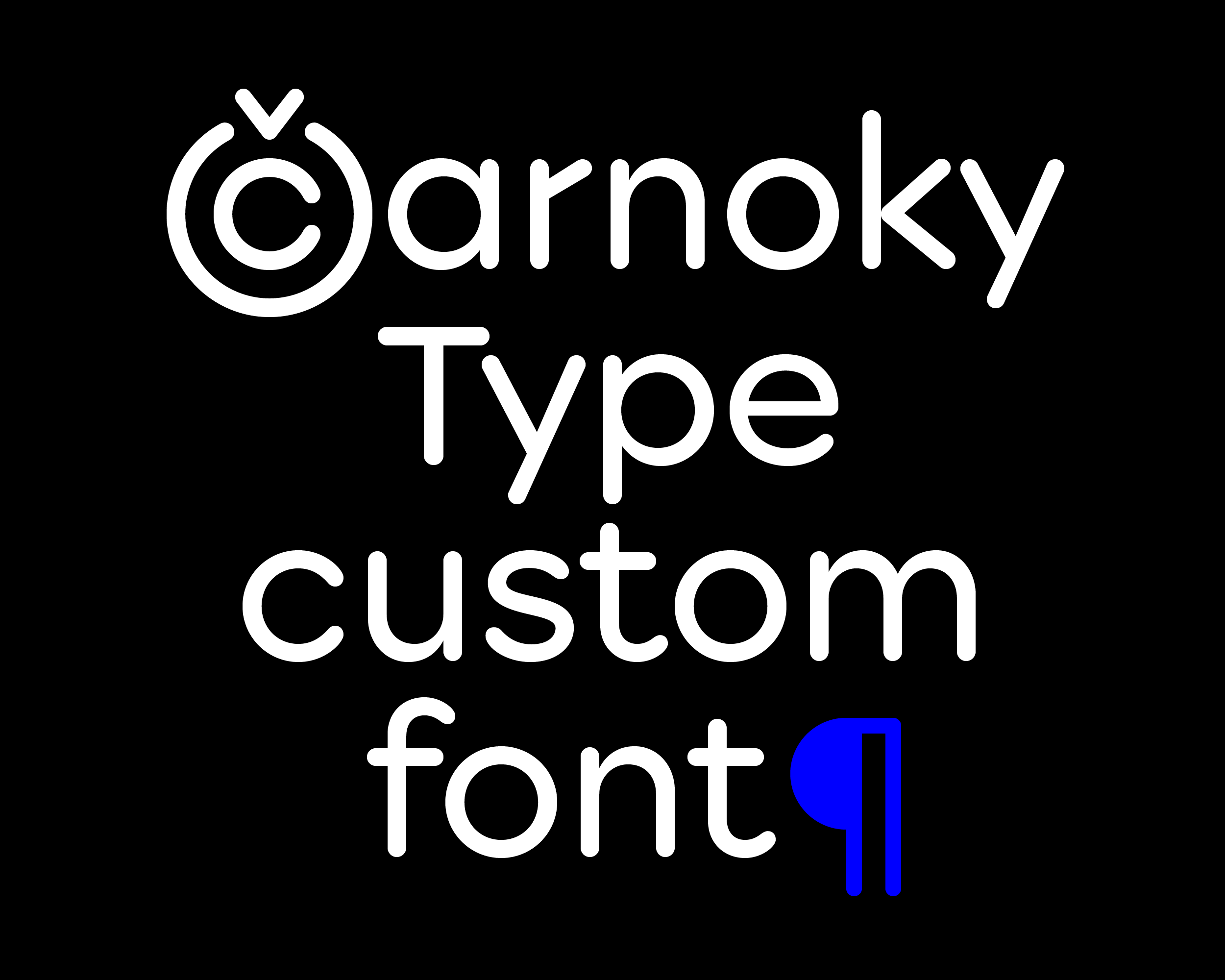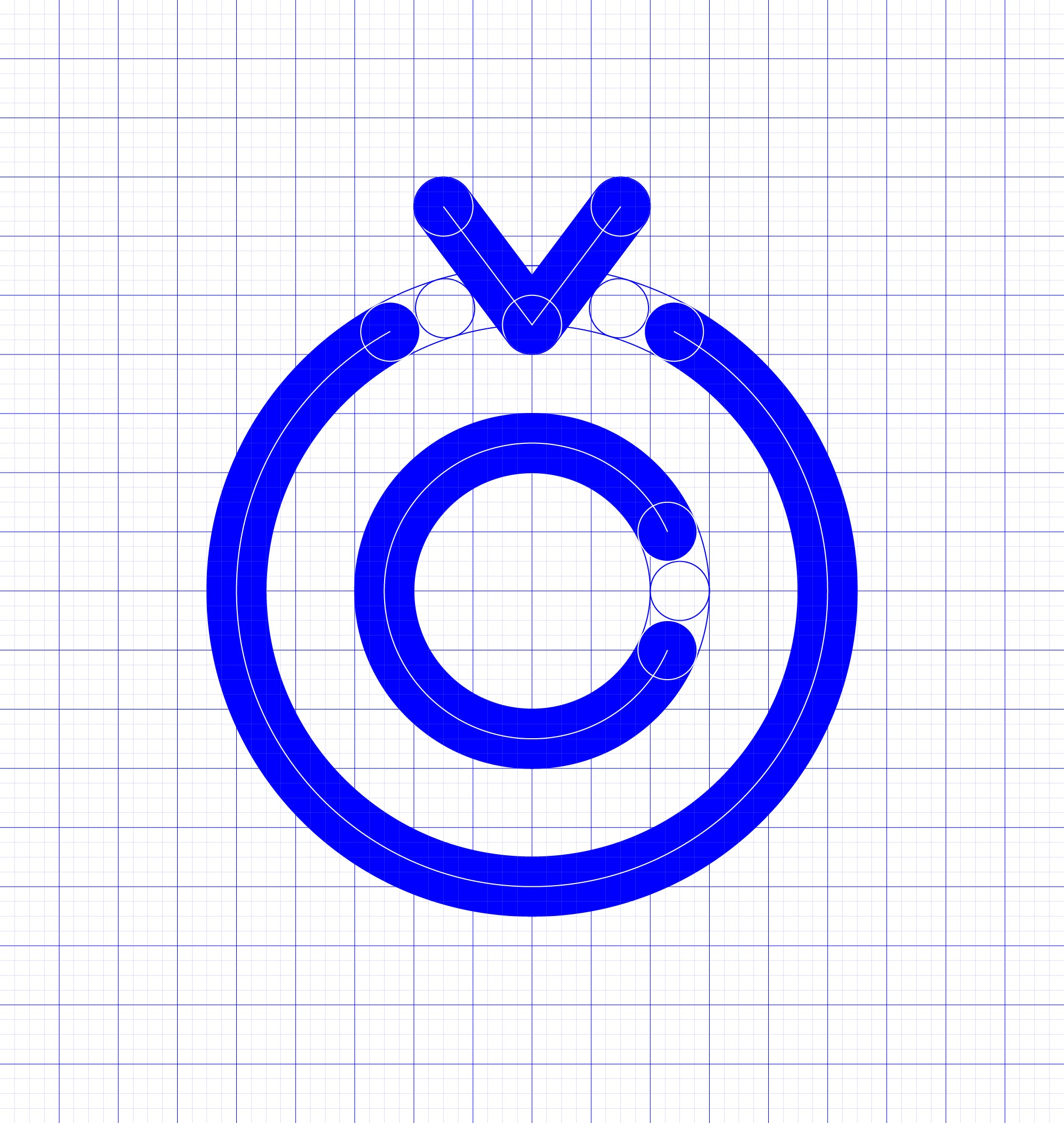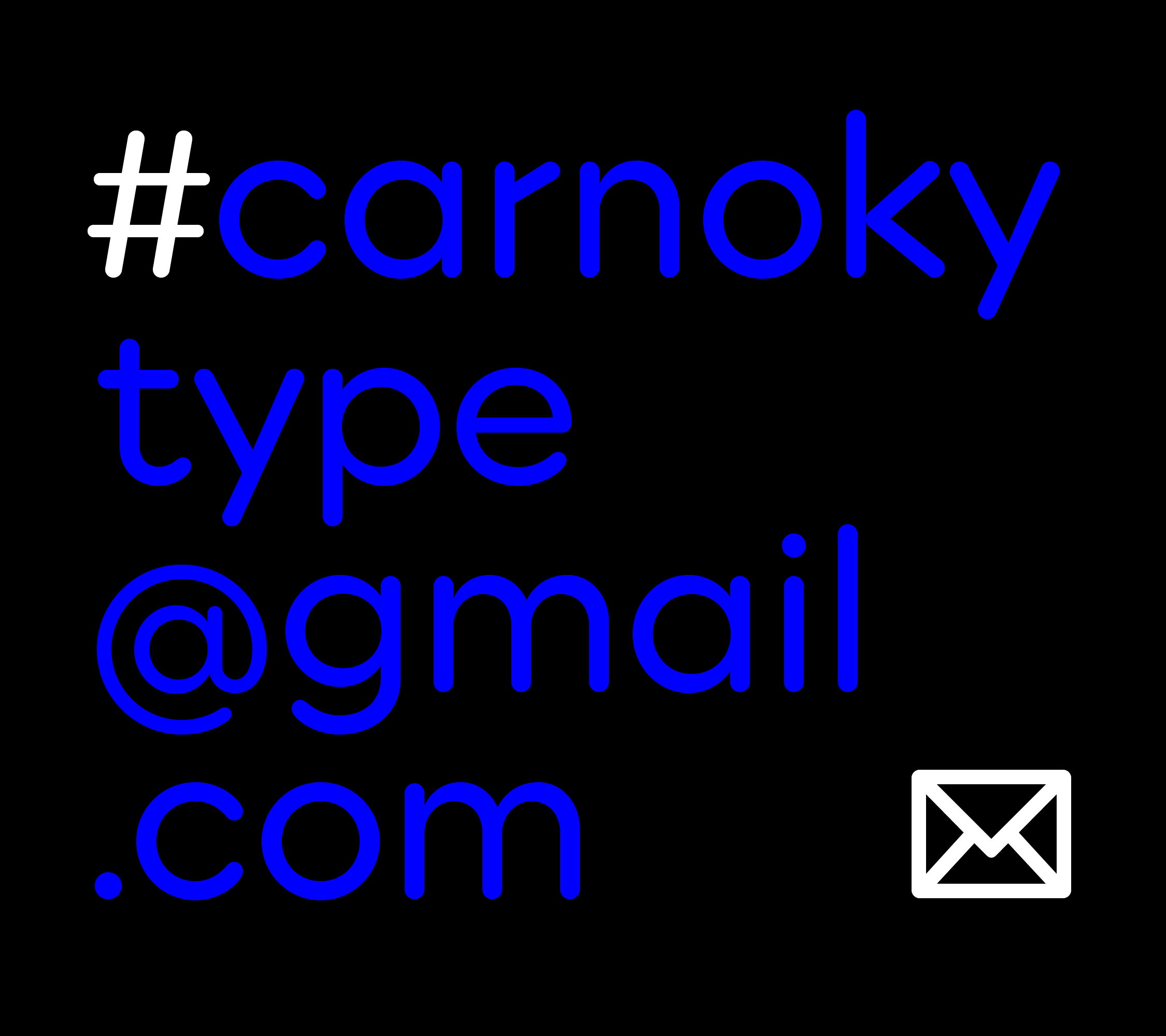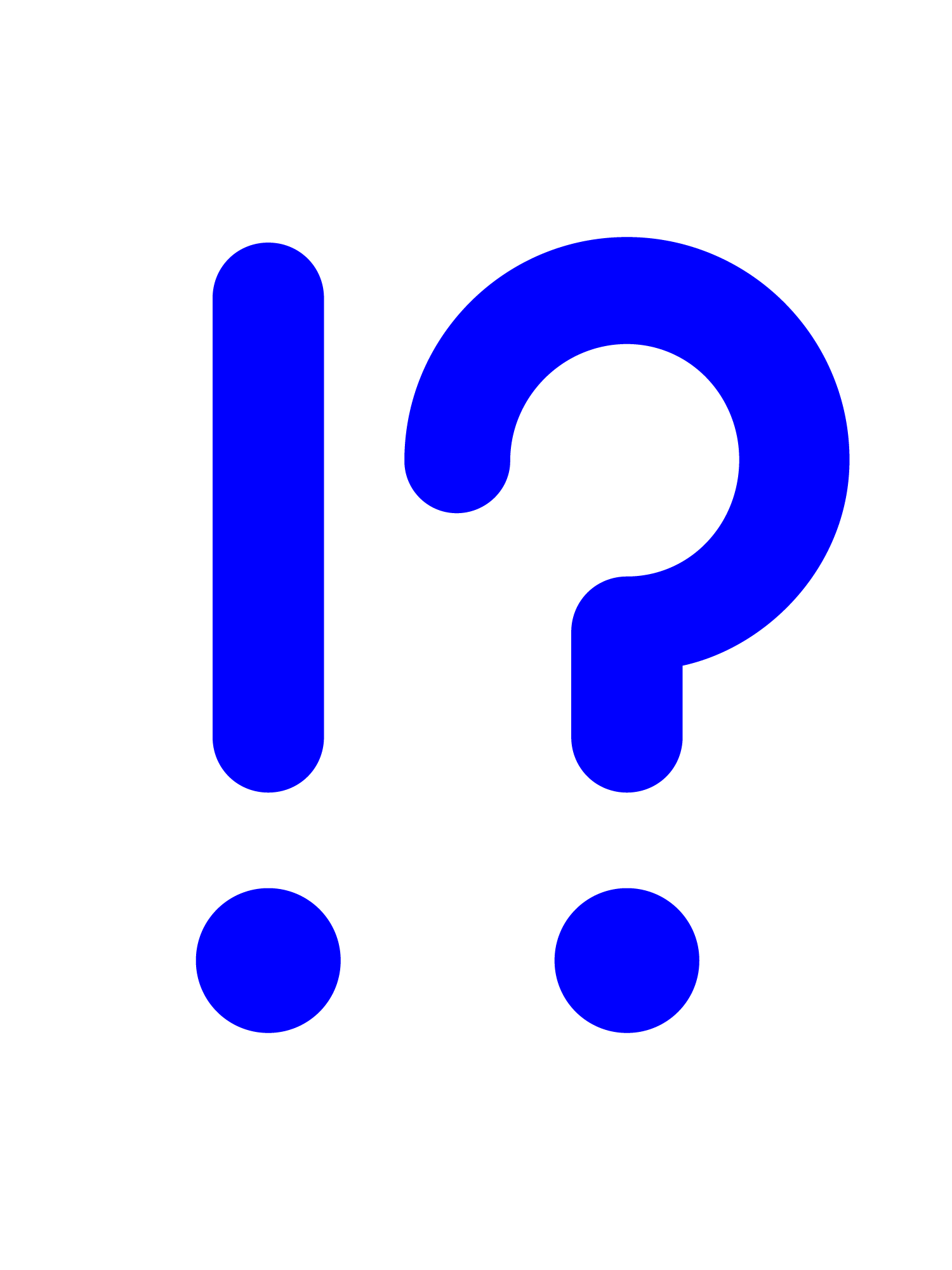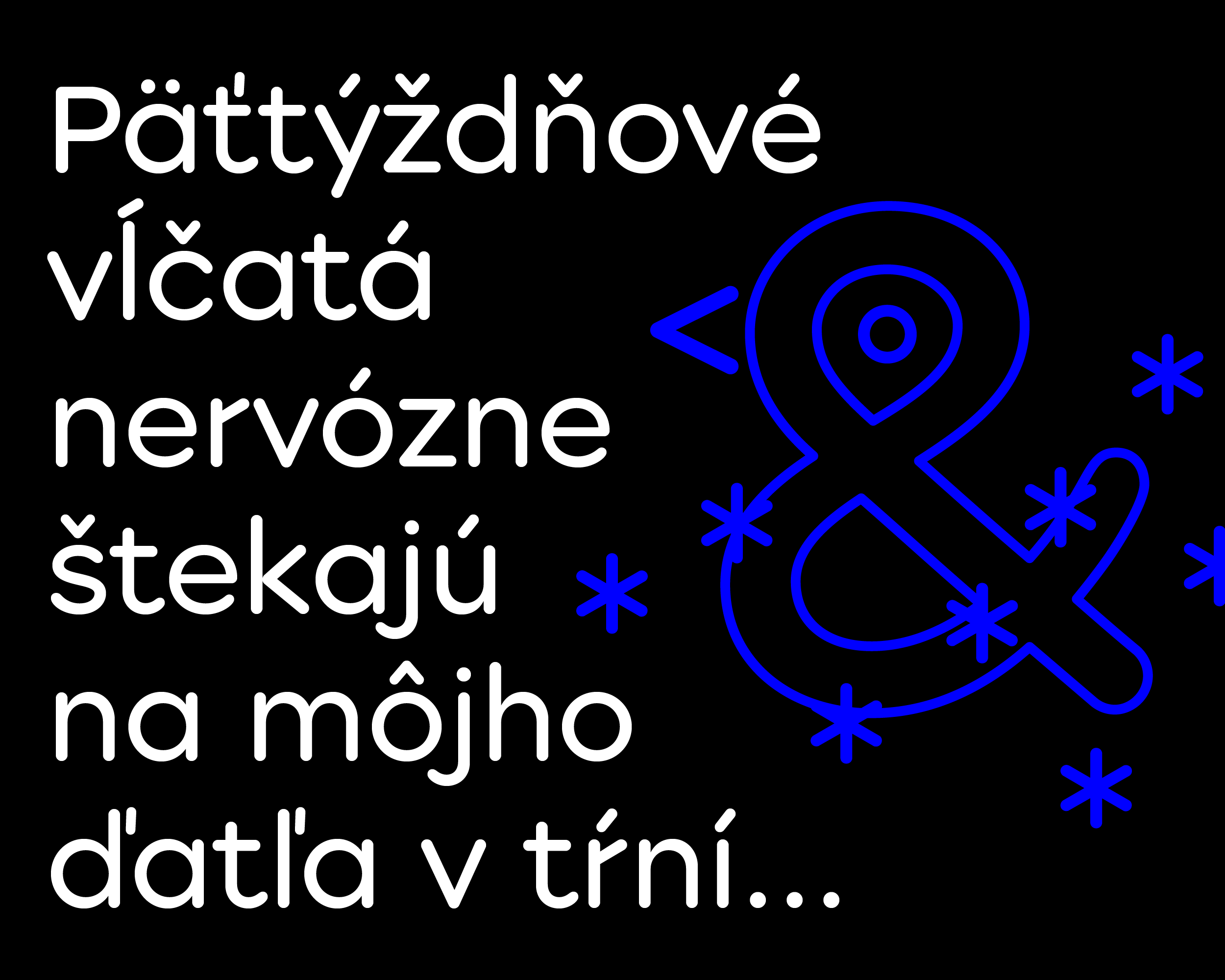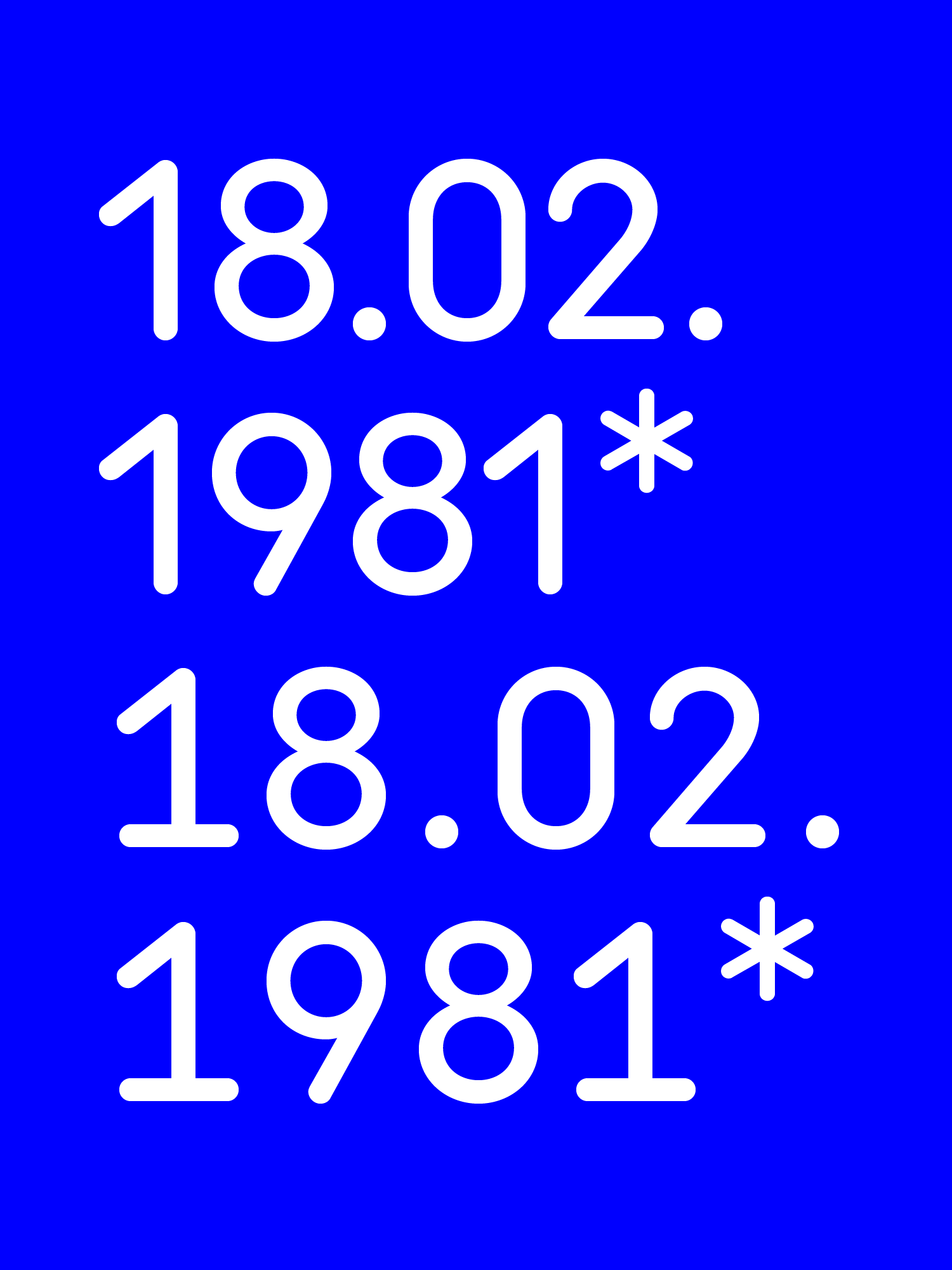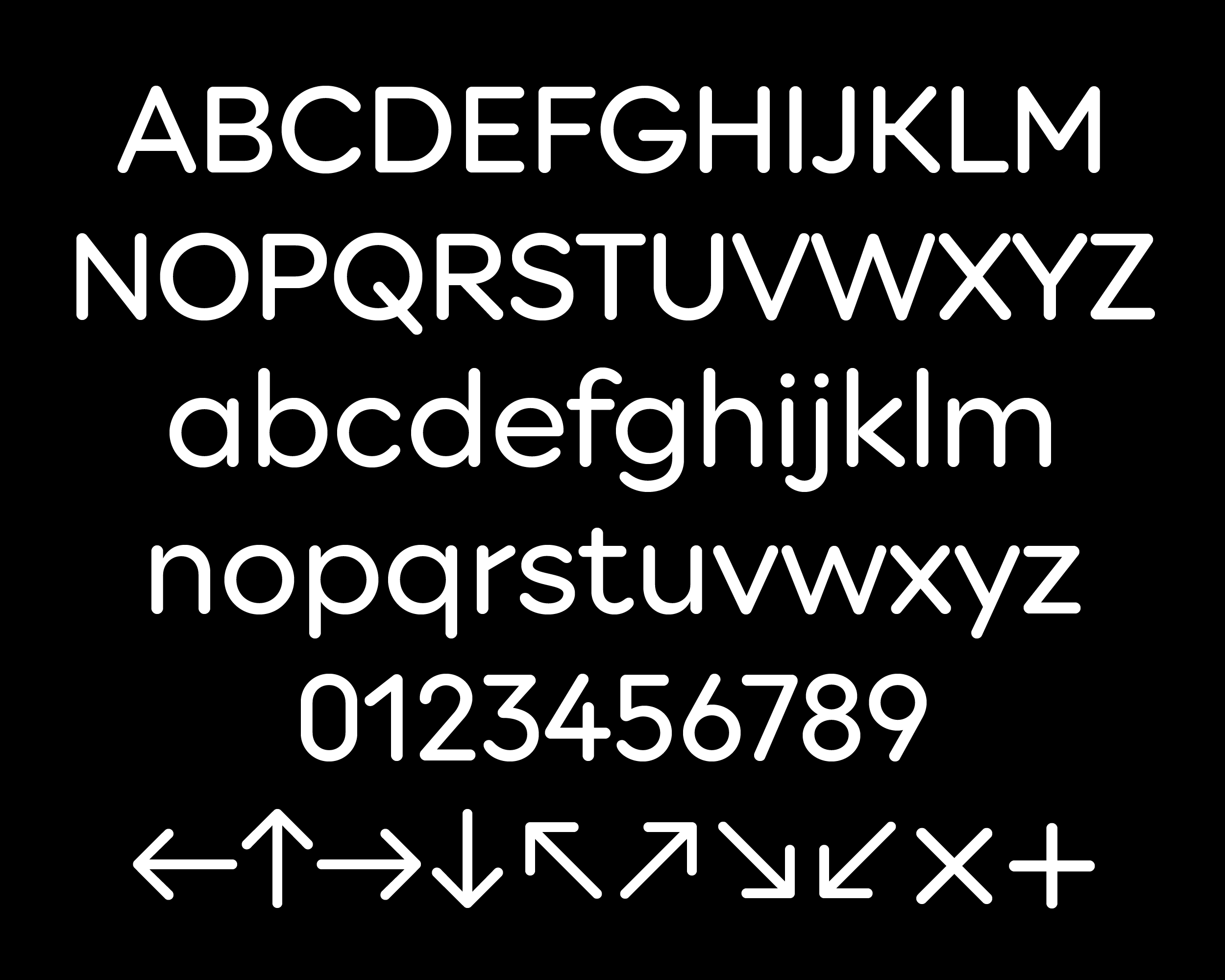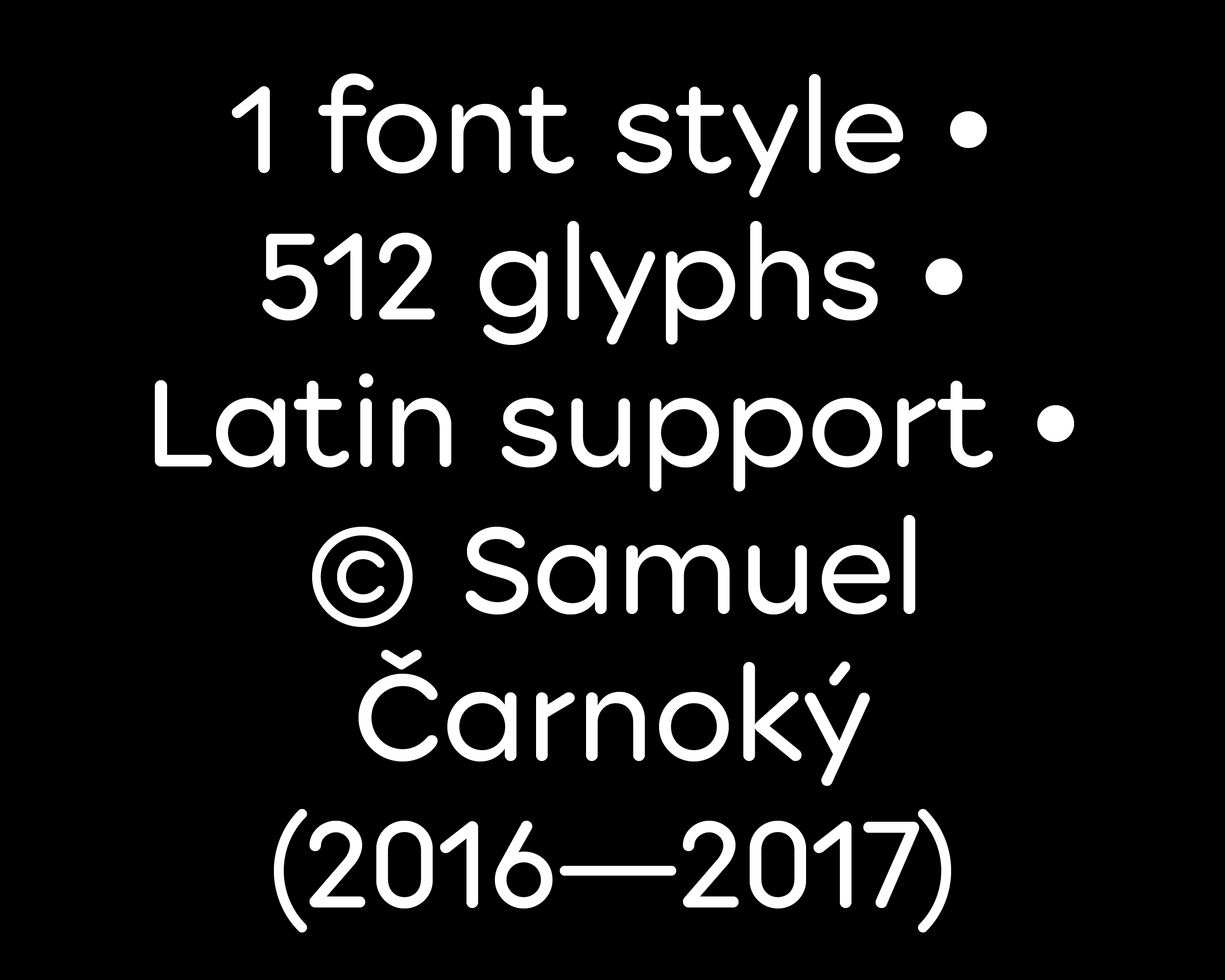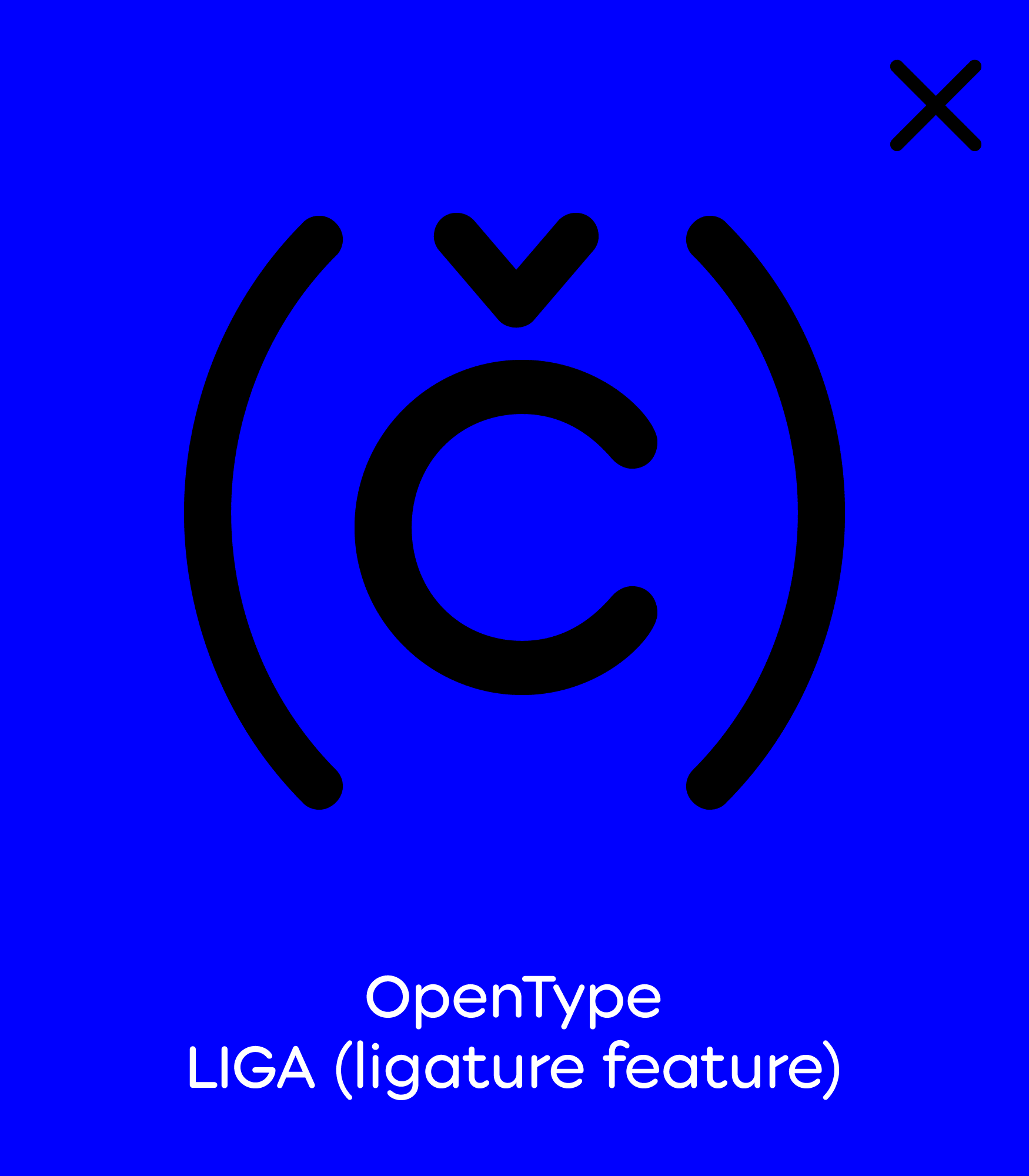
CarnokyType
A geometrical sans-serif with rounded terminals. This typeface was derived from the custom lettering of the CarnokyType logotype. It consits only of regular style with full latin character support and it is completed by the special ligature for own branding purposes.
1 style • 512 glyphs • Latin support • © Samuel Čarnoký (2016—2019)